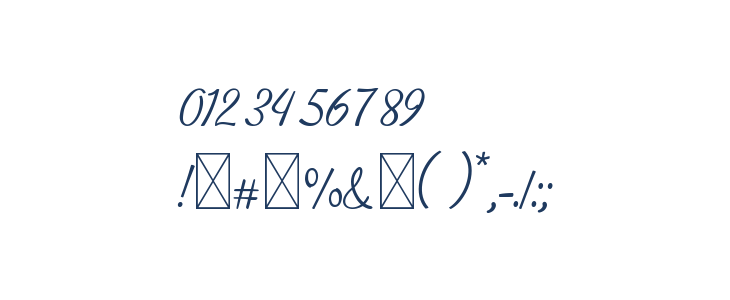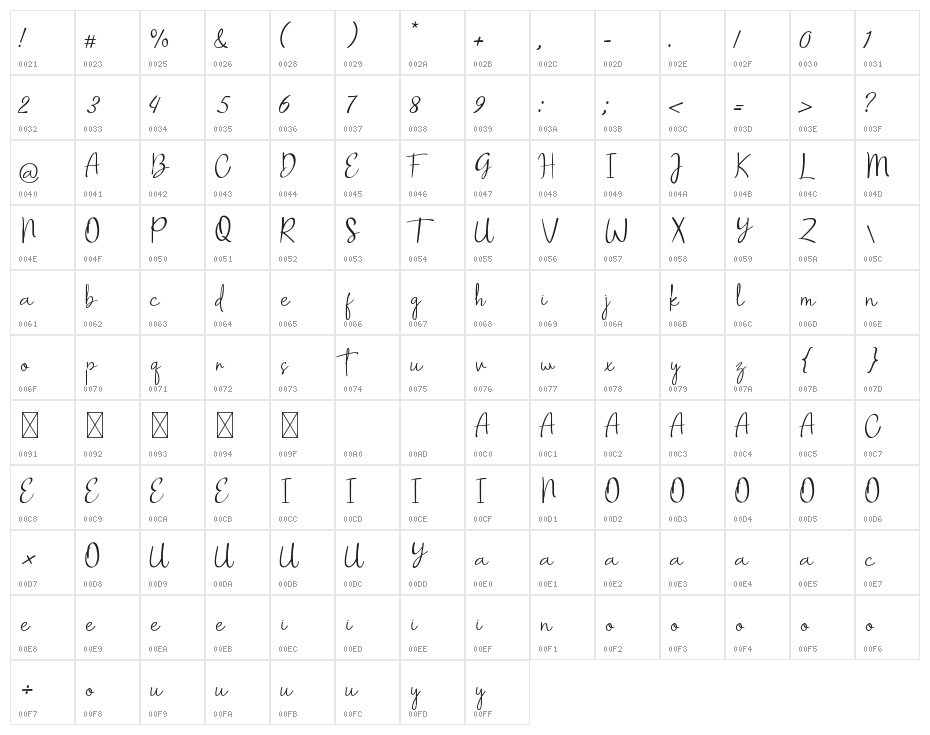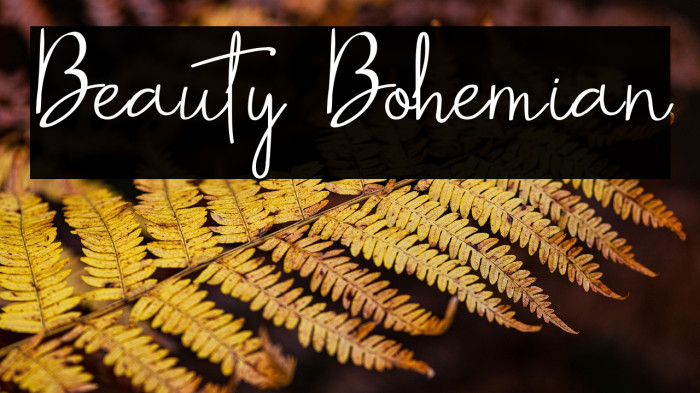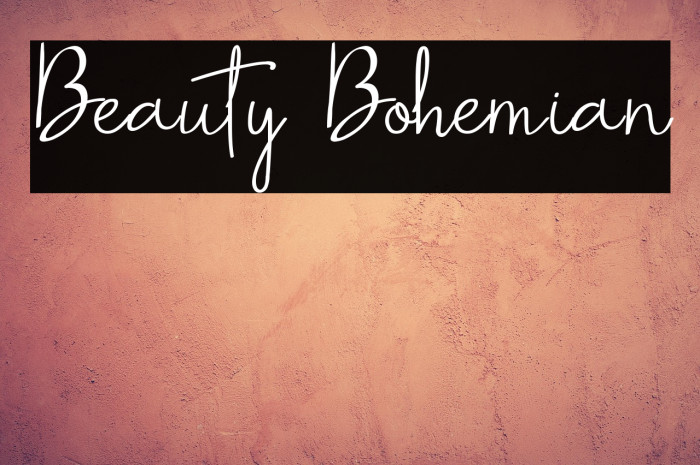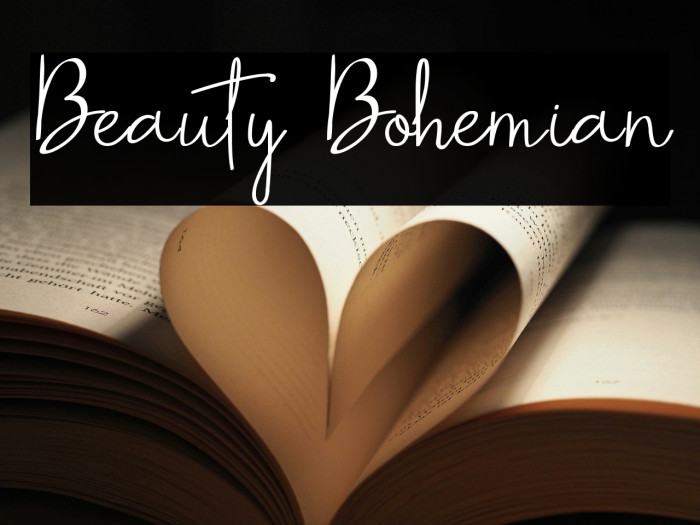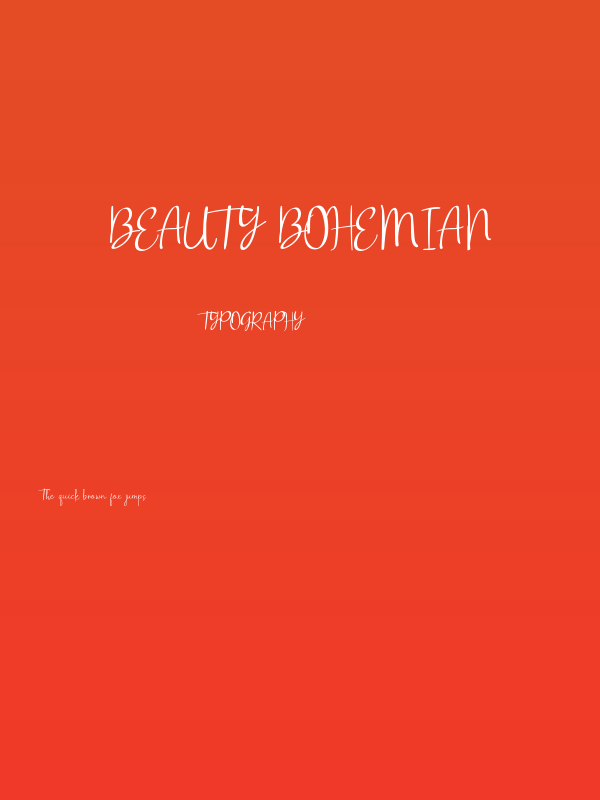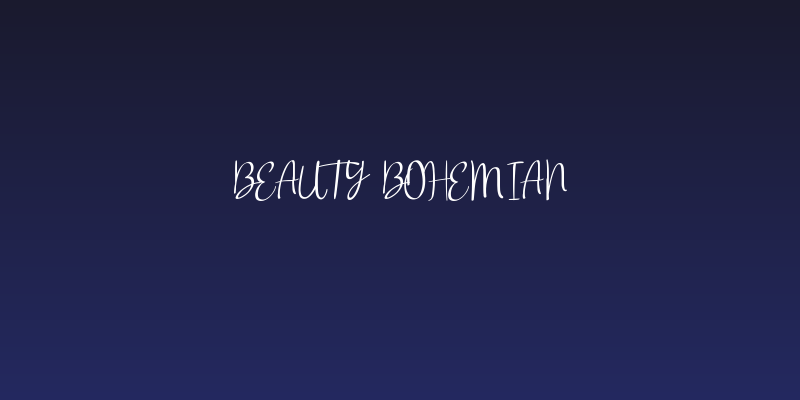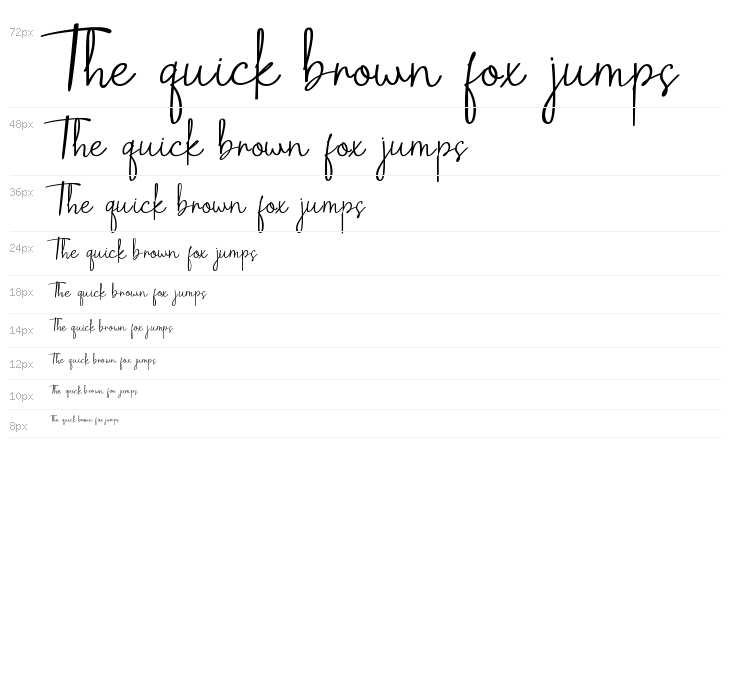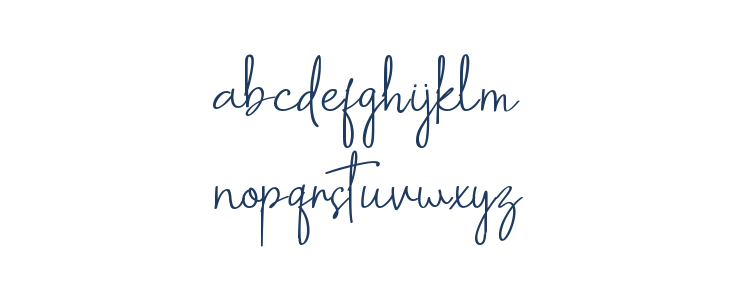
Beauty Bohemian Font
Beauty Bohemian Description
This font exudes a whimsical and artistic flair, characterized by its flowing, cursive style that mimics the fluidity of handwriting. The uppercase letters are tall and elegant, with a slight slant that adds a sense of movement and grace. The lowercase letters maintain a consistent flow, enhancing the handwritten aesthetic. The numerals are clear and distinct, complementing the overall style with their slightly playful curves. Special characters are creatively designed, maintaining the artistic theme. This font is perfect for projects that require a personal touch, such as invitations, greeting cards, or branding materials that aim to convey creativity and elegance.
| Use Case | Logos, Invitations, Artistic Branding |
| Proposed Projects | Ideal for wedding invitations, greeting cards, artistic branding, and creative projects. |